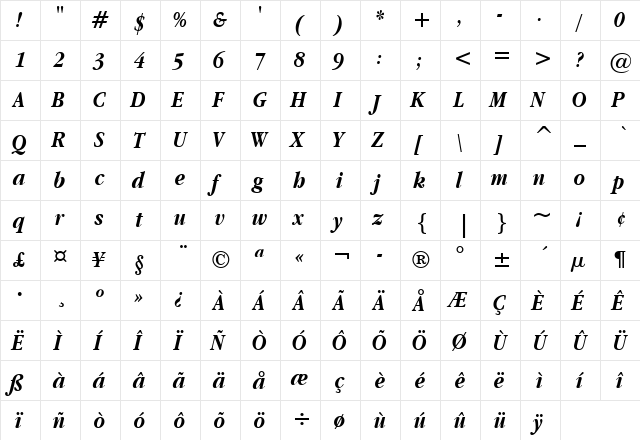
Apple Garamond BT Bold Italic Font Preview
Apple Garamond BT Bold Italic
Design Context for Apple Garamond BT Typeface
Apple Garamond BT is a composed and adaptable typeface that performs quietly and consistently across a wide range of design contexts. The slanted form adds forward momentum and visual energy. The heavy weight commands attention and anchors typographic hierarchies.
Pro Tip: Use Apple Garamond BT for emphasis, pull quotes, and subheadings where its slanted energy can add rhythm to the layout.